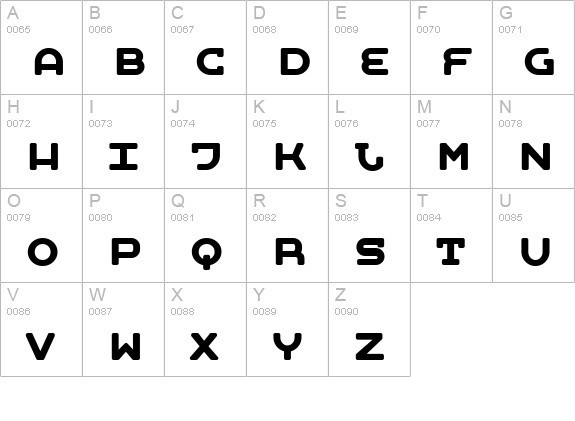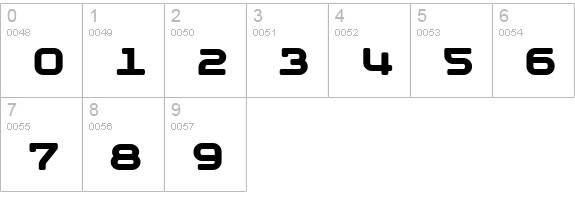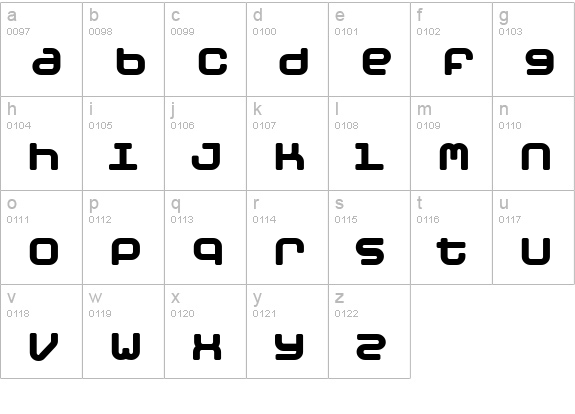
Moby Bold Font Details
Moby Bold is a strong, high-contrast variant in the Moby typeface family \xE2\x80\x94 well suited to headlines, attention-grabbing titles, and strong calls-to-action.
Moby Bold is a striking and versatile font that exudes boldness and modernity. Its clean lines and strong presence make it perfect for a wide range of design projects, from eye-catching headlines to stylish branding. The thick strokes and rounded edges give Moby Bold a sense of solidity and reliability, making it a go-to choice for designers looking to make a statement. What sets Moby Bold apart is not just its design, but also its accessibility. This versatile font is available for free download at FontsMarket.com, making it easy for designers of all levels to access and use in their projects. Whether you're working on a website, poster, or logo, Moby Bold is sure to make a bold impact and elevate your design to the next level.